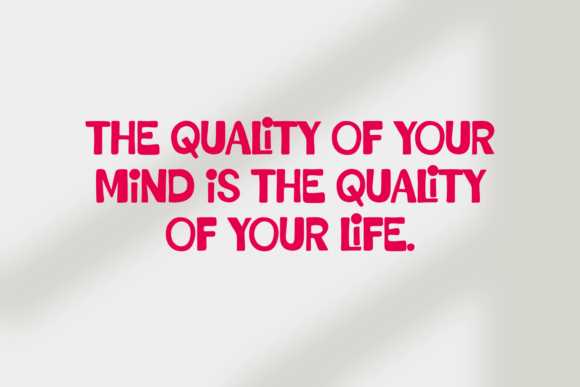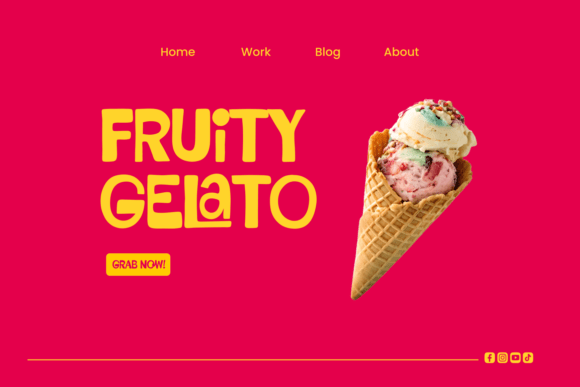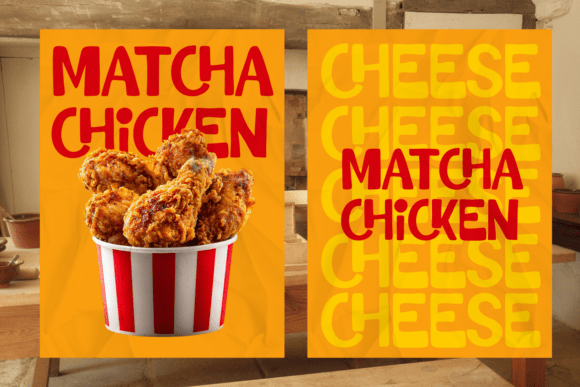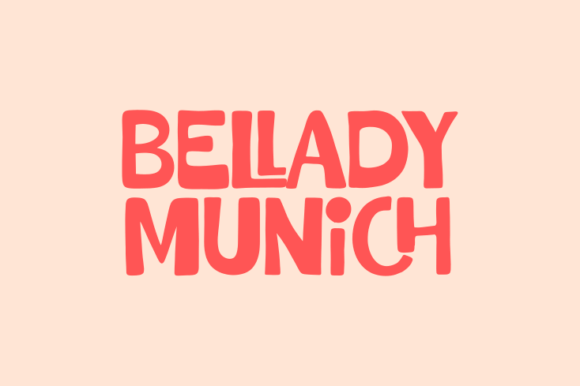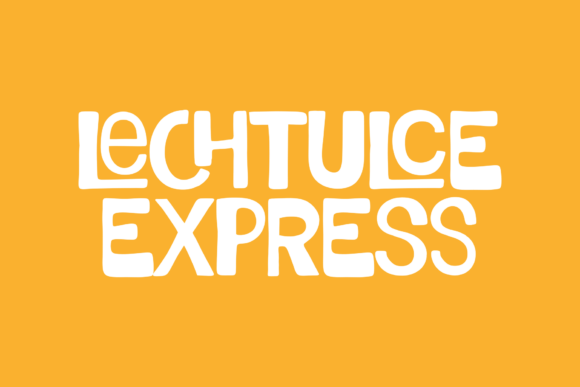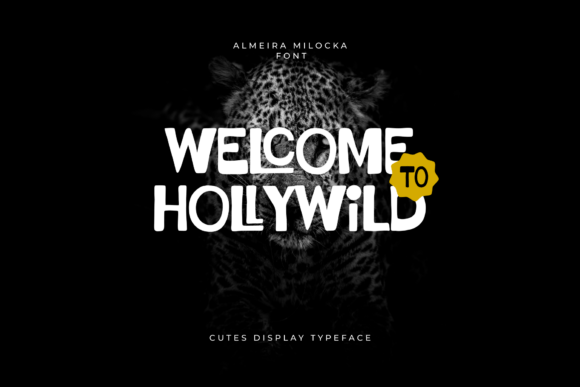
Introduction to Almeira Milocka Font
Almeira Milocka is a fun, bold, and expressive sans serif typeface designed to bring joy and personality to any project.
With its playful curves, quirky letterforms, and charming handwritten feel, this font is perfect for branding, childrenโ€™s products, food packaging, posters, social media content, and creative advertising Almeira Milocka also includes stylistic alternates and multilingual support, giving designers the flexibility to craft unique and engaging typography.